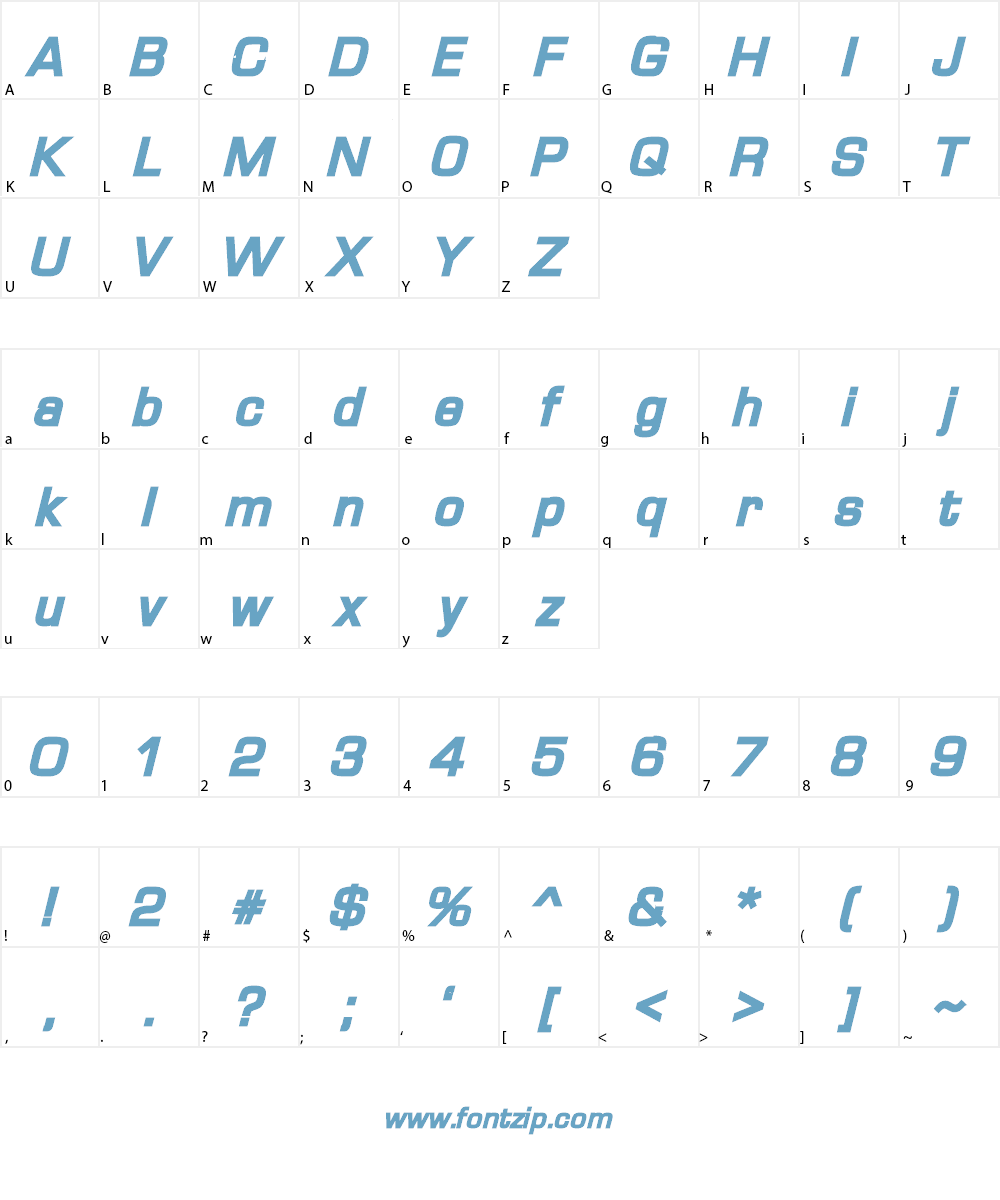
Waukegan LDO is based on Eurostile, which is in turn based on Microgramma.
This version has looser metrics in the extended faces, giving a more open feel to the font and making it more appropriate for modern display advertising, while retaining a tighter set of metrics for the text variations.